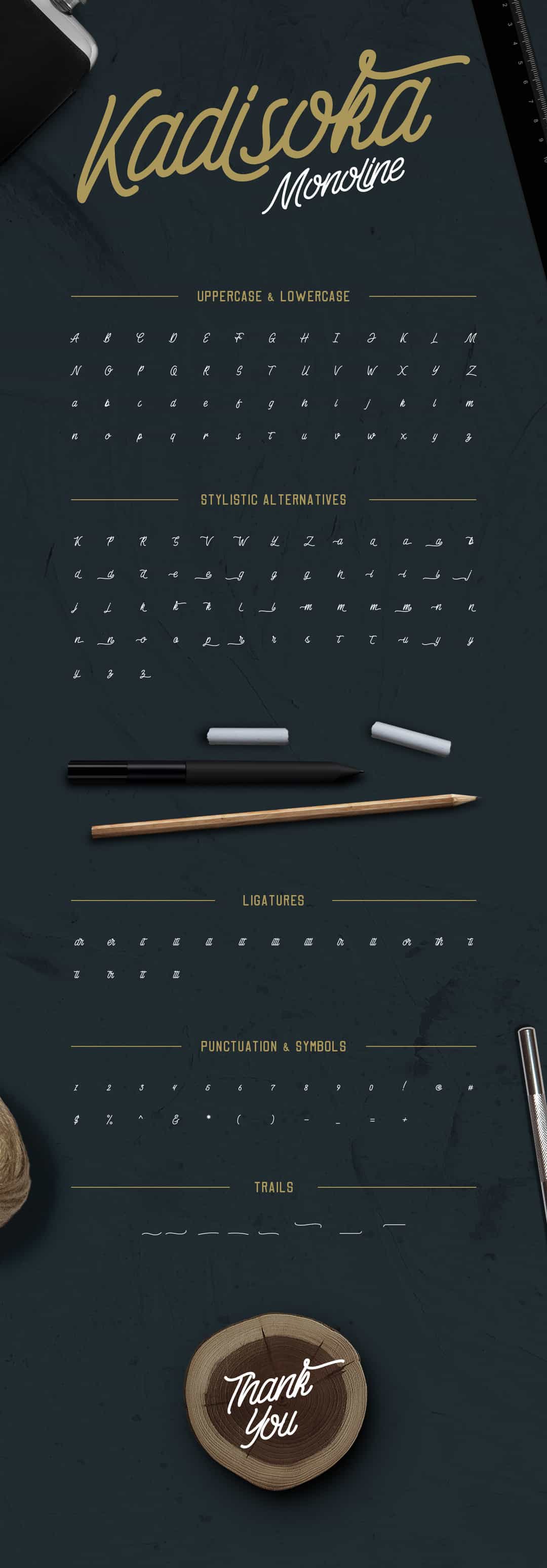
Discover Kadisoka Monoline Font Free, part of the Calligraphy Monoline collection—a versatile and unique font perfect for adding a personal touch to your projects. Download it for free and enjoy crafting designs with style, from invitations to social media posts. This font is available exclusively for personal use, giving you the freedom to create without limits. Unlock your creativity with Kadisoka Monoline Font Free today!